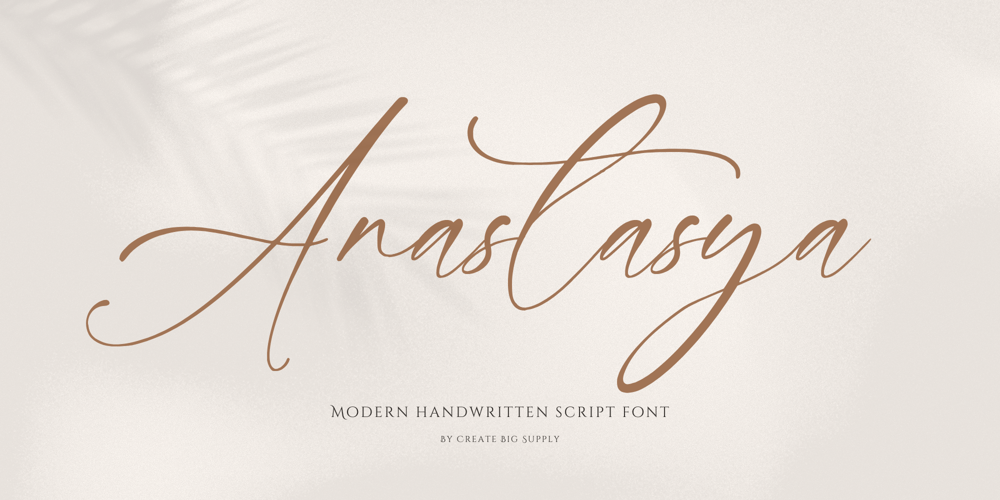
Anastasya Font Family was designed by Irpan Maulana and published by Create Big Supply. Anastasya contains 1 styles and family package options. Introducing Anastasya, an elegant script handwritten signature font that exudes beauty and femininity. With its captivating style, Anastasya is perfect for a wide range of projects. Whether you’re designing wedding invitations, crafting sophisticated logos, or adding a touch of elegance to your branding, this font is sure to impress. It features both uppercase and lowercase letters, numbers, and punctuations, allowing for versatile design options. Anastasya is also multilingual, enabling you to communicate your message globally. With ligatures and PUA encoding, accessing unique glyphs and special characters is effortless. Explore the full character set of Anastasya and elevate your designs with its graceful charm.